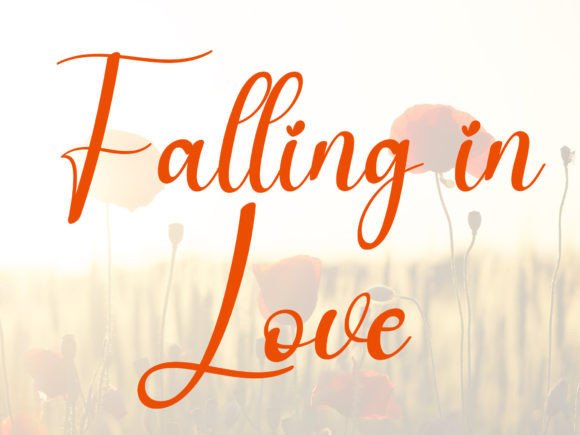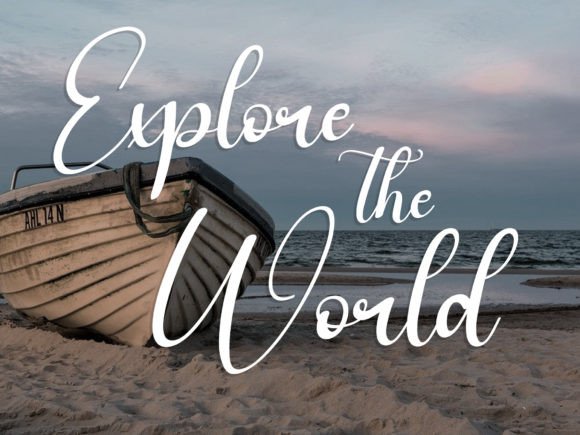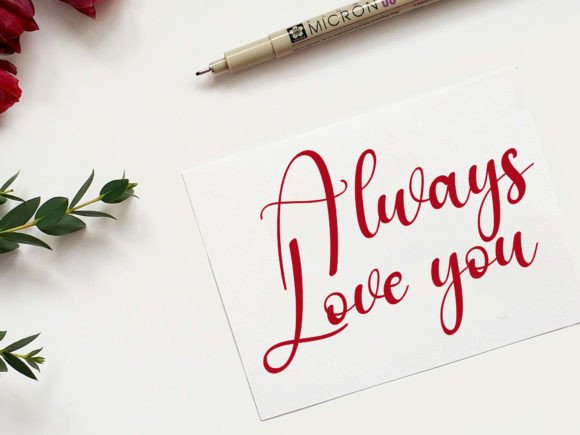
Introduction to Gracama Font
Have you ever found yourself rummaging through your design files at midnight, searching for the perfect font to bring your creative project to life? For designers, this moment of inspiration is a treasure trove of possibilities, and the right font can make all the difference. That’s where Gracama Font comes in – a game-changing design resource that adds a touch of luxury and mystery to any project.
With its delicate yet bold lines, Gracama Font is the perfect choice for upscale branding, luxurious evening events, and intimate, nocturnal-themed designs. Whether you’re working on a high-quality invitation, a captivating headline, or a refined branding material, Gracama Font brings a level of sophistication and elegance that’s hard to find in other design resources.
Key Features of Gracama Font
- Unique, hand-drawn style with a transparent background, making it easy to incorporate into various design elements.
- Font size: 1000 glyphs, covering a wide range of languages and characters.
- Resolution: Optimized for high-resolution displays, ensuring crisp and clear text rendering.
- Designed to be highly legible, with a clear and consistent font structure, making it perfect for body text and headings.
Honest Review: Gracama Font
- ✨ High-quality design: The Gracama Font boasts a clean and modern aesthetic, perfect for a variety of design applications.
- ✨ Transparent background: The font’s transparent background makes it easy to work with, allowing for seamless integration into your design.
- ✨ Versatile: The Gracama Font is suitable for both personal and professional projects, making it a valuable design resource.
While the Gracama Font is a solid choice, I did encounter a few limitations. The font’s limited character set may not be ideal for more extensive design projects.
- ⚠️ Limited character set: The Gracama Font’s character set is not as comprehensive as some other fonts, which may be a drawback for more complex projects.
Overall, the Gracama Font is a great option for designers looking for a high-quality, free design resource. While it may not be perfect, its clean design and transparent background make it a valuable addition to any design toolkit.
Common Use Cases for Gracama Font
Gracama Font is perfect for various design projects, including logos, business cards, and social media graphics. You can also use it to create custom fonts for your branding materials.
Alternatives to Gracama Font
Pacifico is a high-quality script font ideal for creative projects that require a touch of elegance and sophistication. It’s available for free download and is perfect for use on invitations, wedding stationery, and other design elements that require a romantic feel. When to use: Wedding invitations, greeting cards, and other romantic designs. How it compares to Gracama Font: Pacifico has a more delicate and refined look compared to Gracama Font, making it suitable for projects that require a softer, more feminine touch.